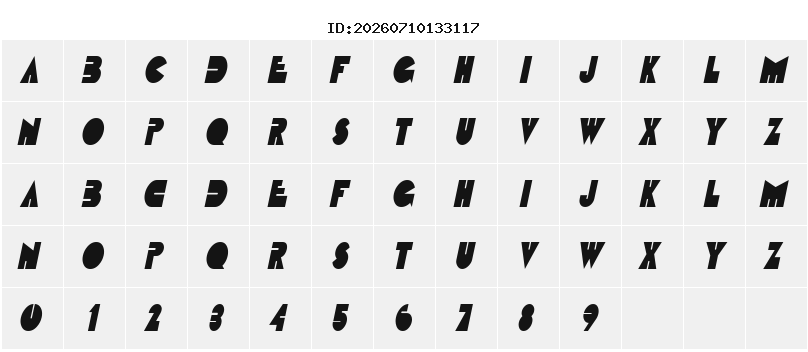
Fatso Thin Preview
• Font Name: Fatso Thin
• Font ID: Altsys Fontographer 4.1 Fatso Thin Italic
• Full Font Name: Fatso Thin Italic
• Version: Altsys Fontographer 4.1 2/1/95
• PostScript Name: FatsoThinItalic
About Fatso Thin.ttf
Fatso Thin.ttf is a modern, elegant sans-serif font designed for ultimate readability and visual harmony. Perfect for branding, headlines, web design, and print materials.